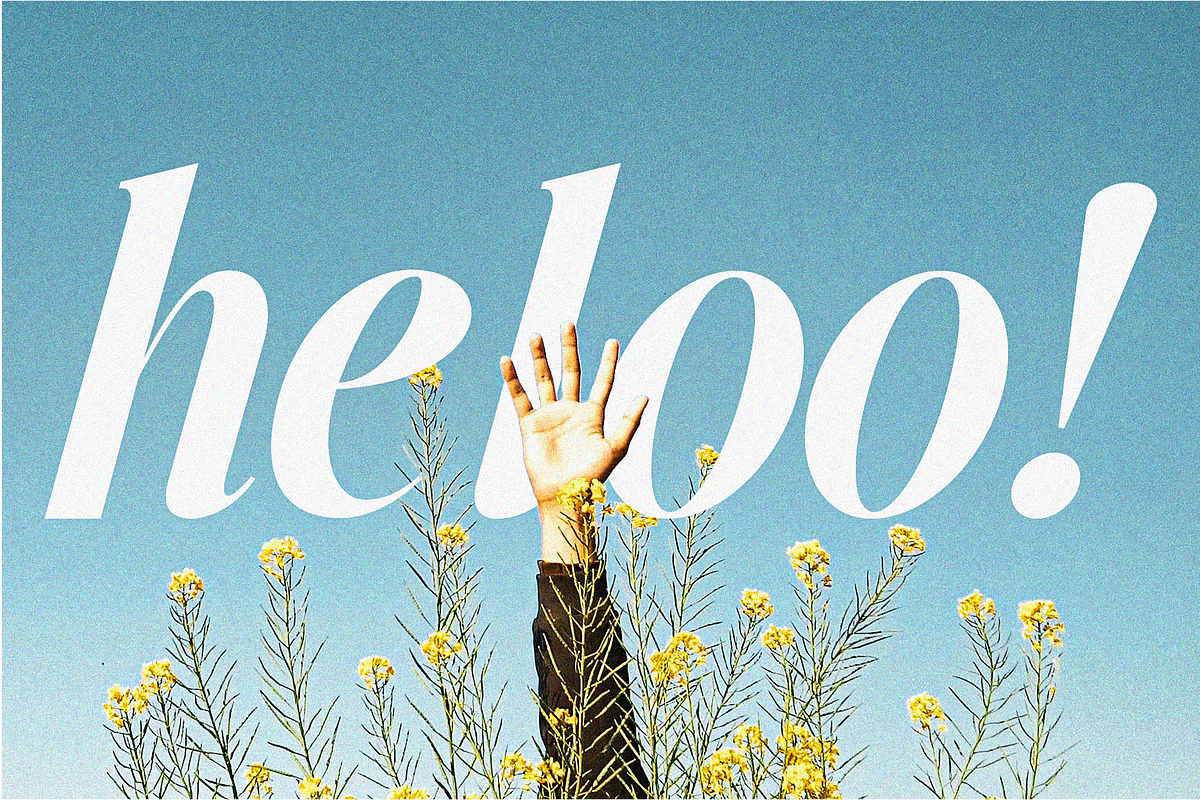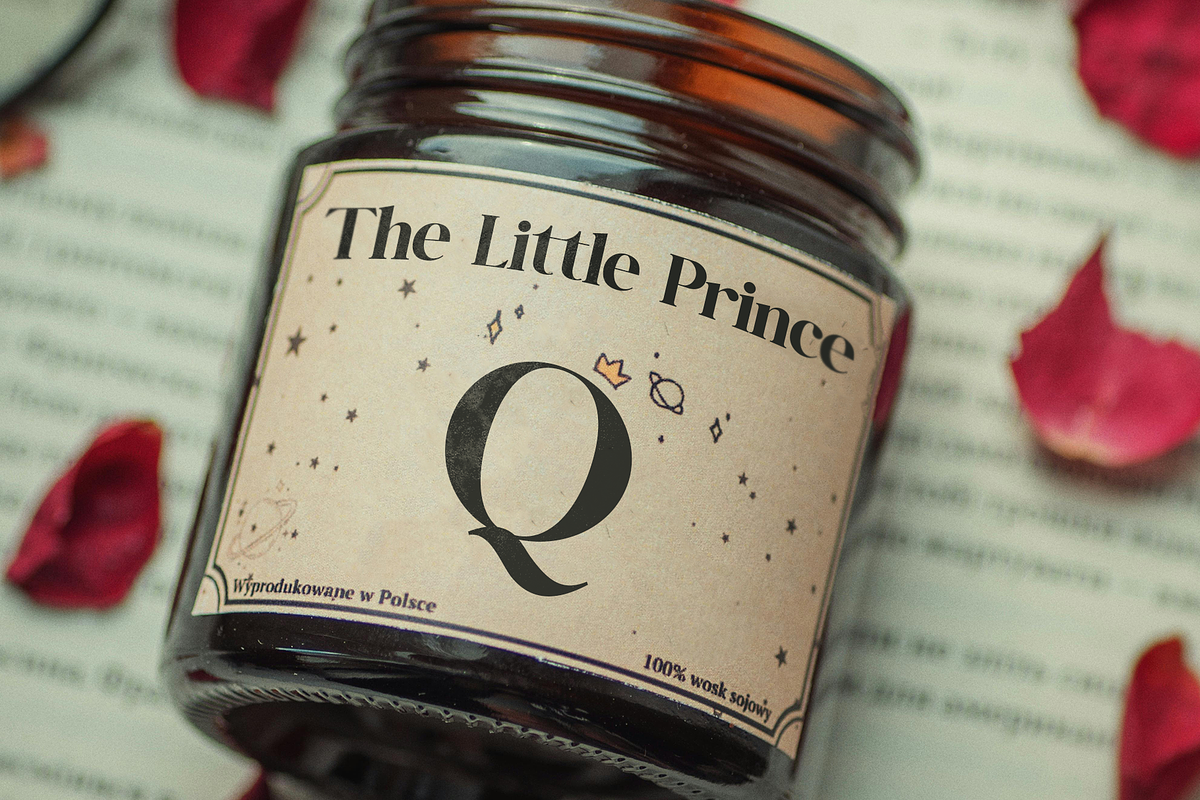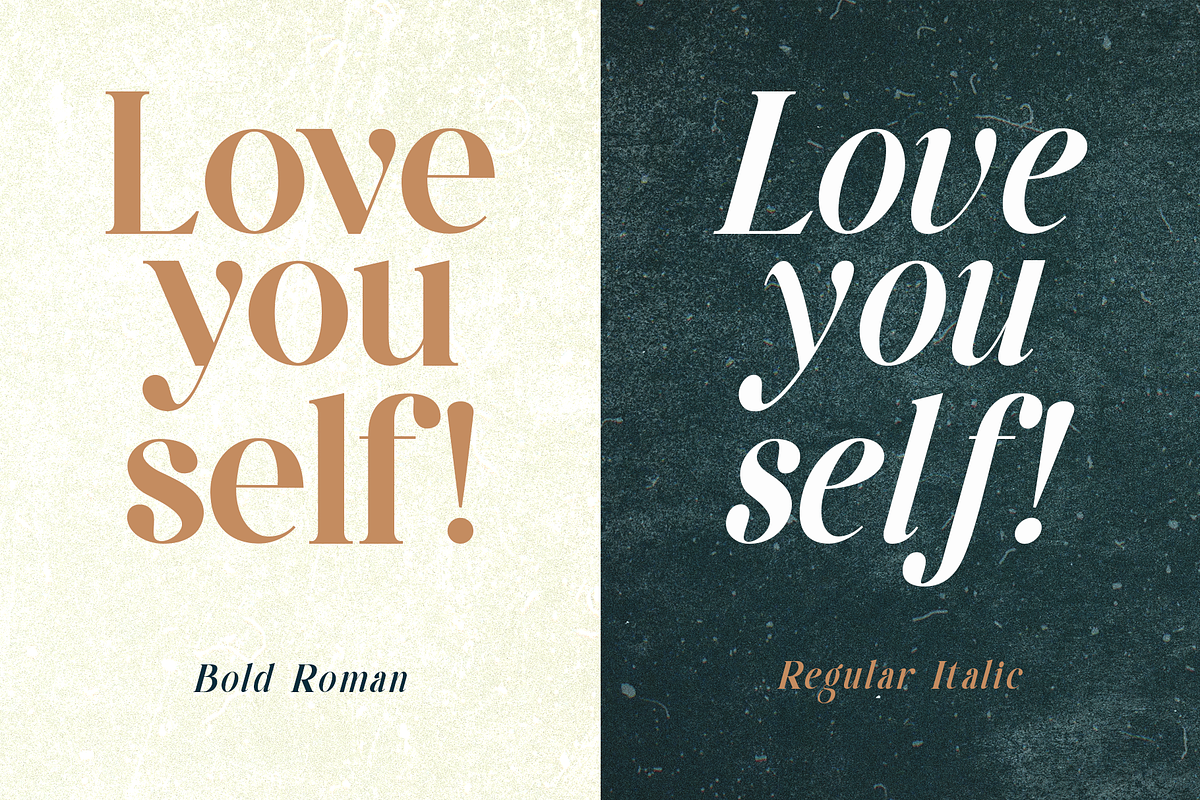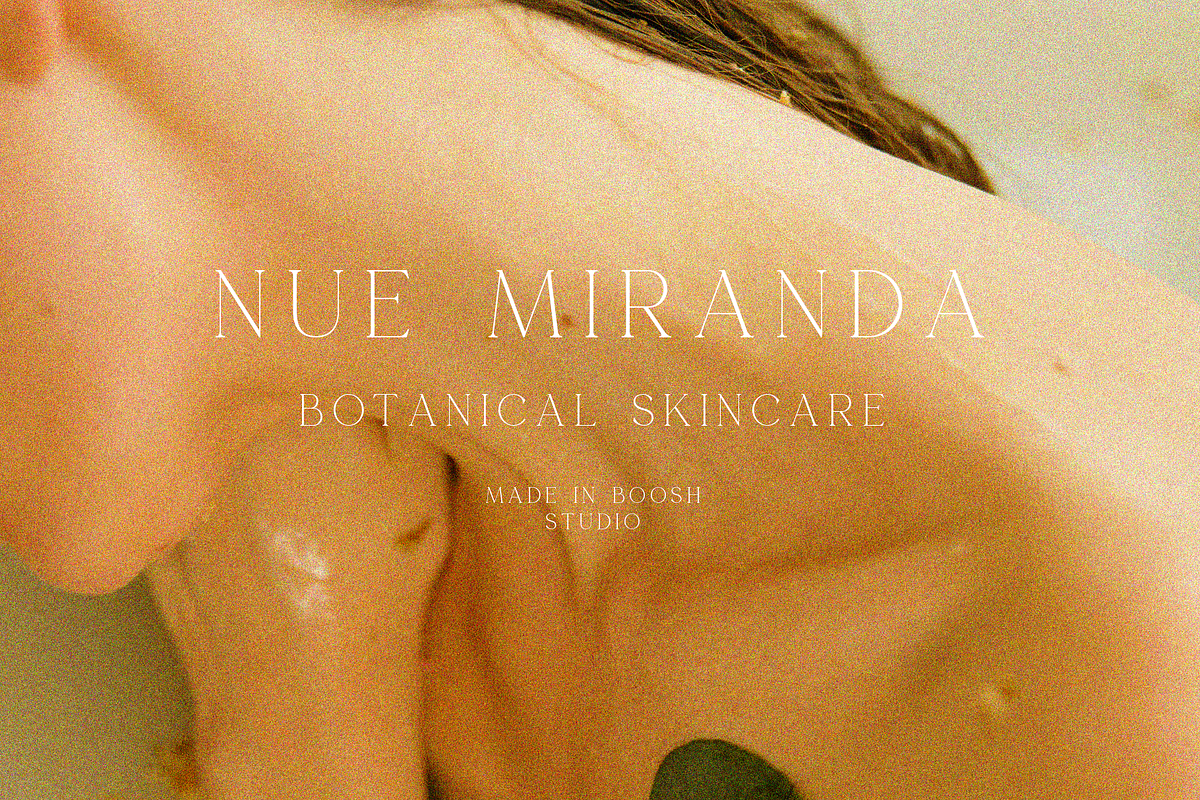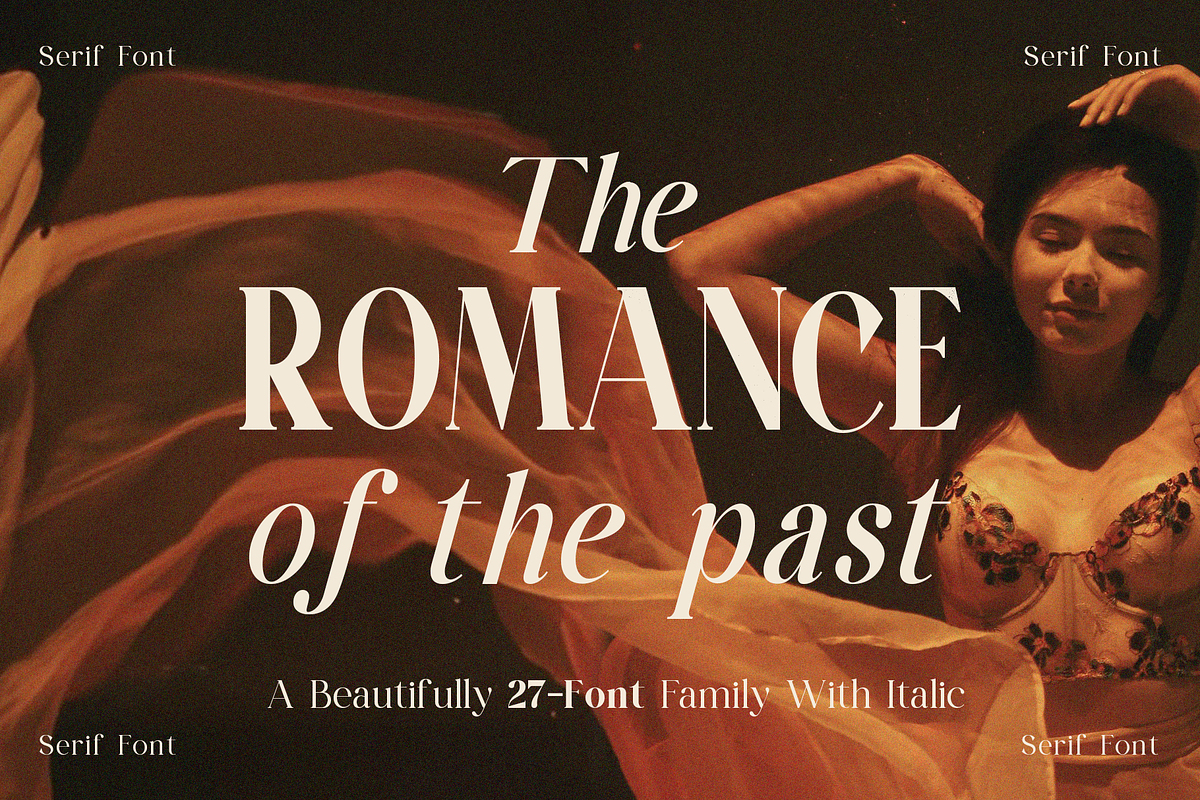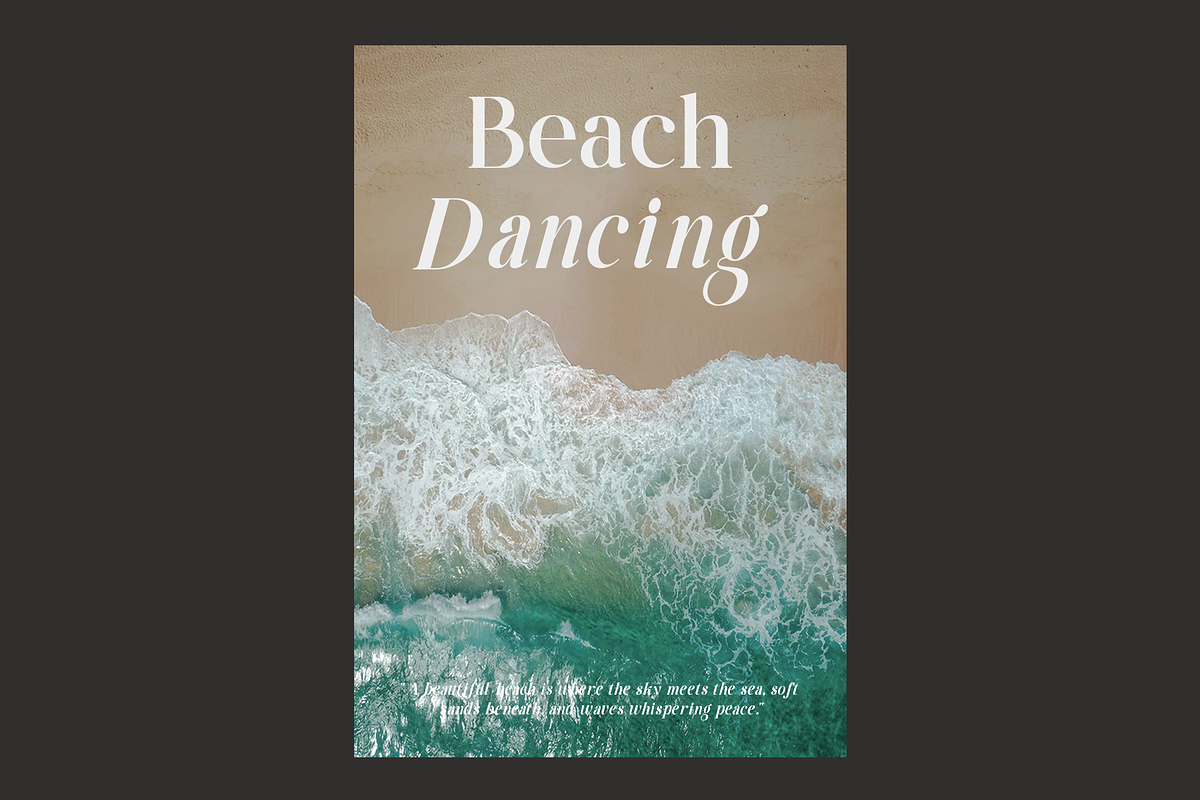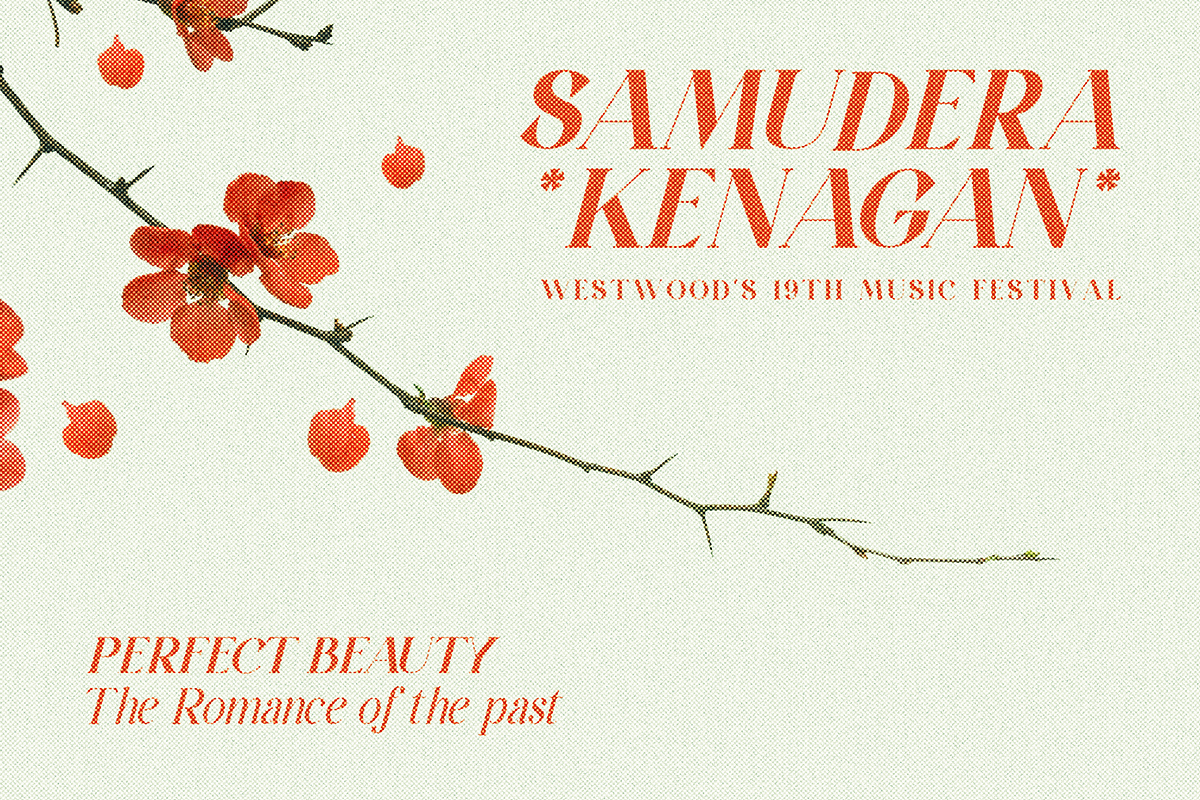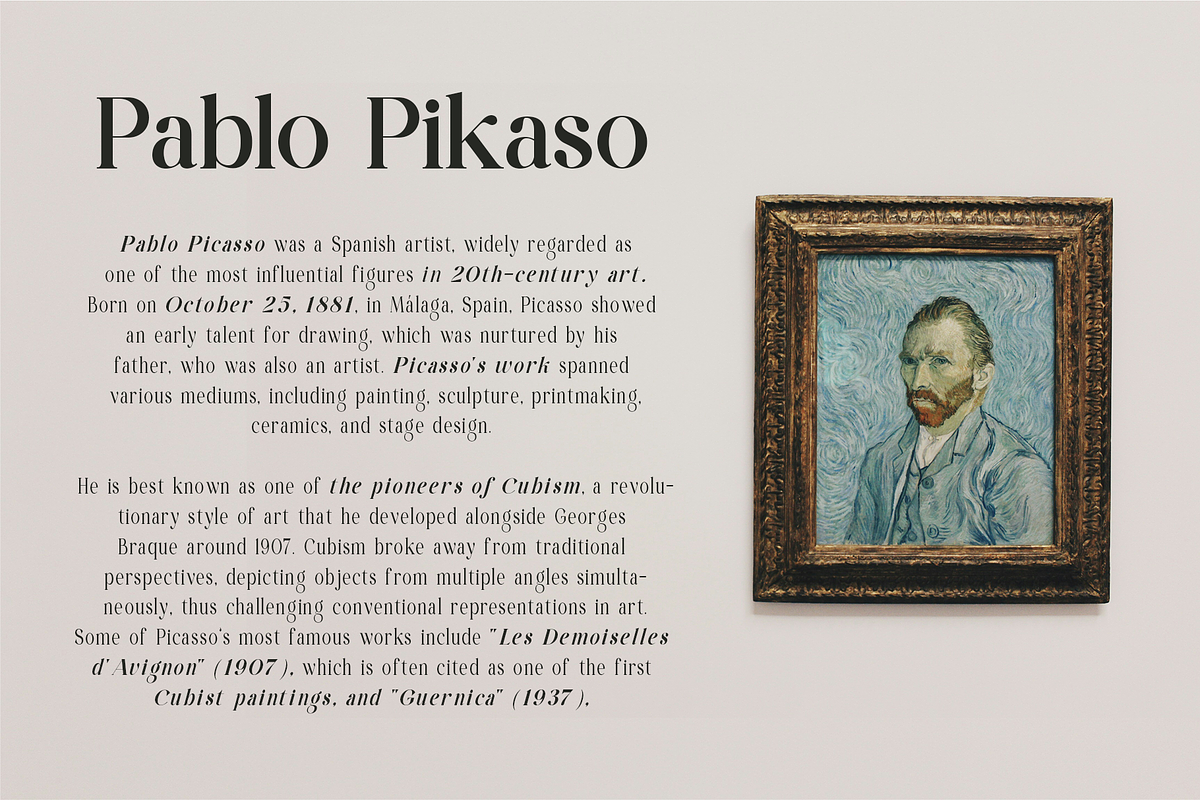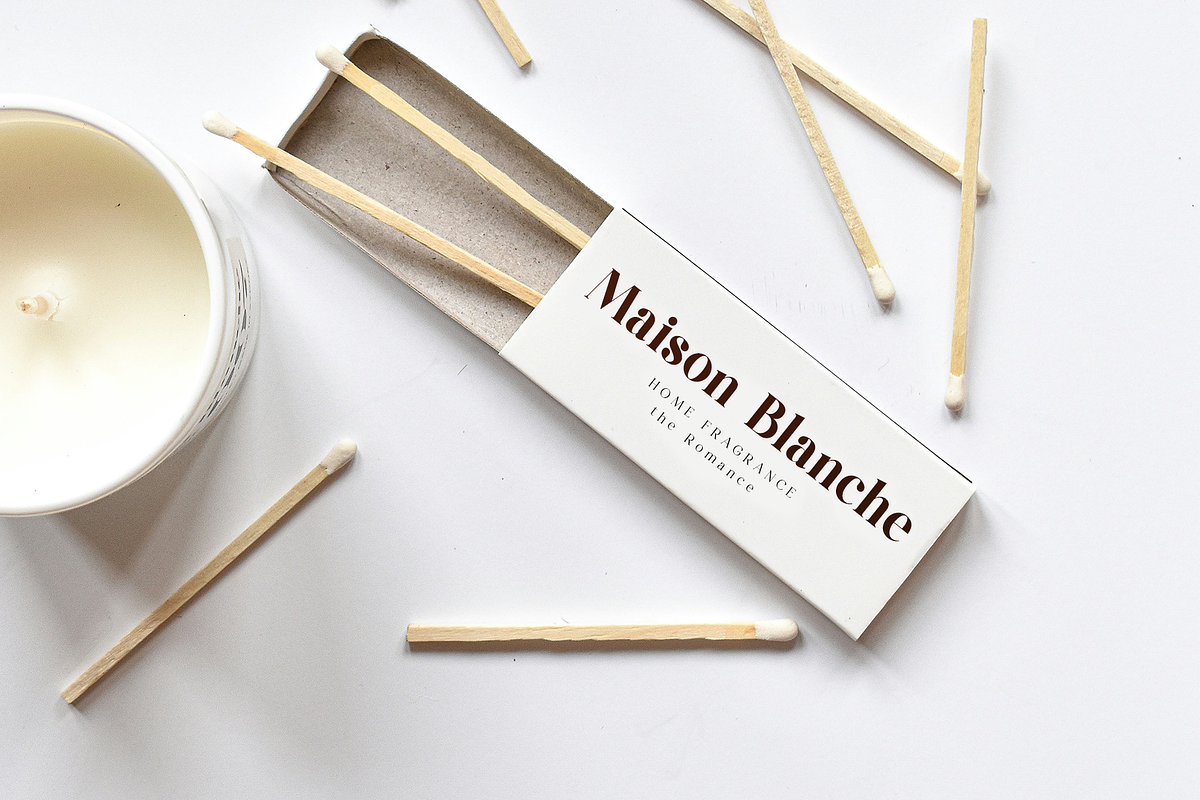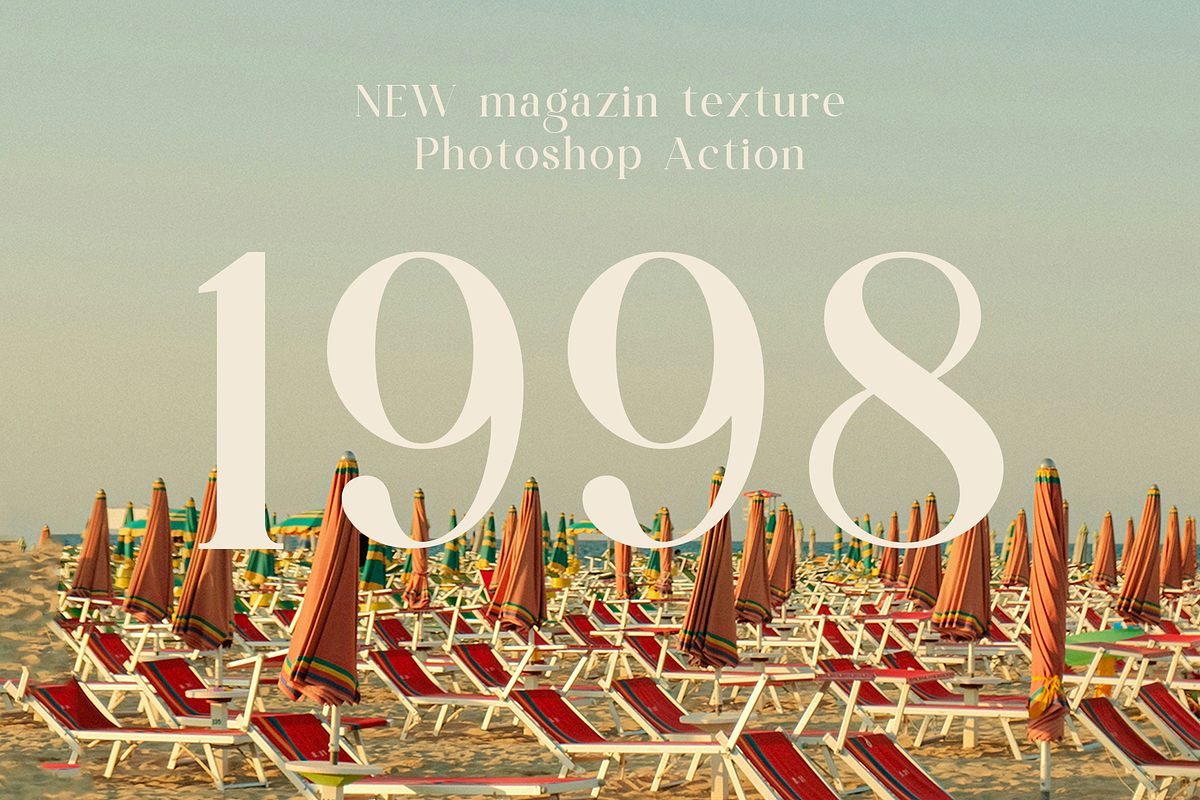
The Romance of The Past Serif Family
The Romance of The Past Serif Family, a serif font collection that seamlessly blends classic grace with refined style. With its elegant curves and intricate details, this font family adds a touch of distinguished luxury to any design project. Perfect for everything from chic invitations to prestigious company logos, captivating movie titles to elegant business cards, it’s designed to elevate your creative endeavors.
Featuring 27 unique and exquisitely crafted font variations, The Romance of The Past Serif Family offers a diverse range of options to suit every design need.
- Elegant Ligatures for seamless text flow
- Complete Character Set: Uppercase and lowercase letters, numbers, and punctuation
- 27 Stunning Variations to provide versatility in your designs
Enhance your designs with The Romance of The Past Serif Family and embrace the perfect blend of timeless elegance and sophisticated charm.